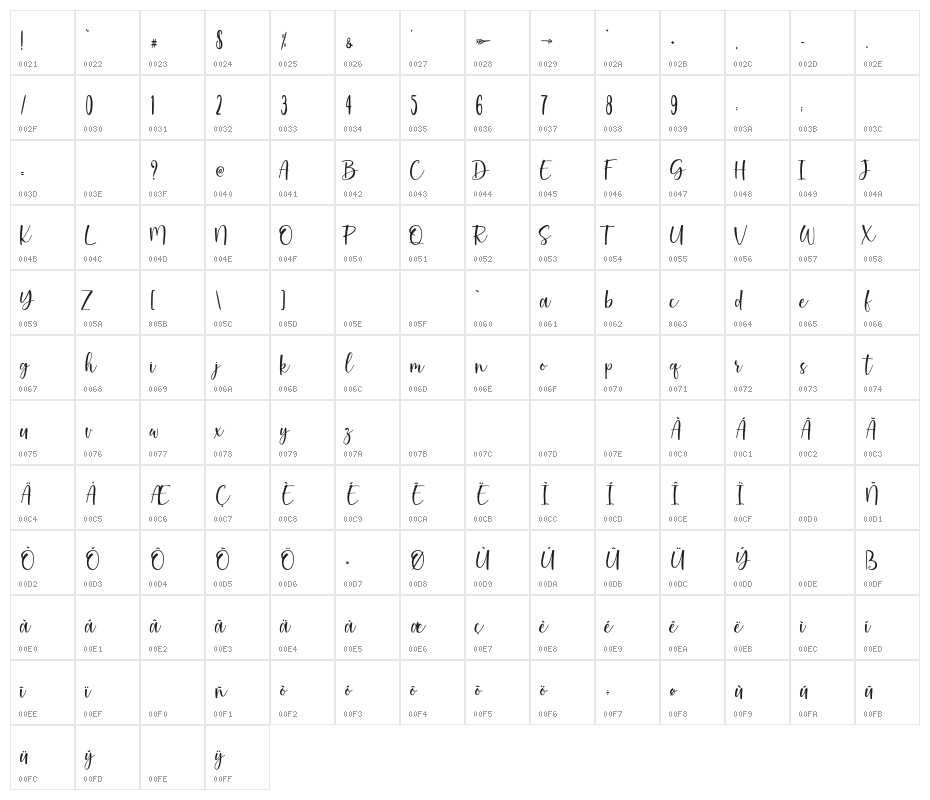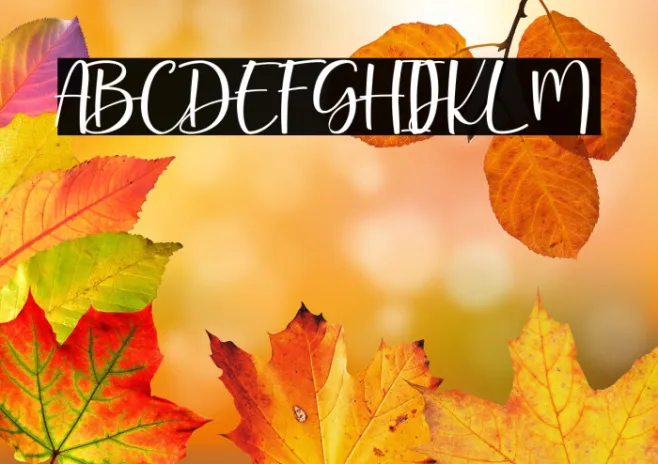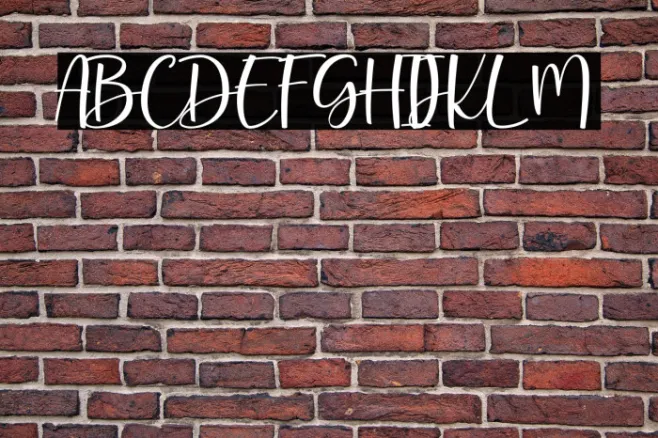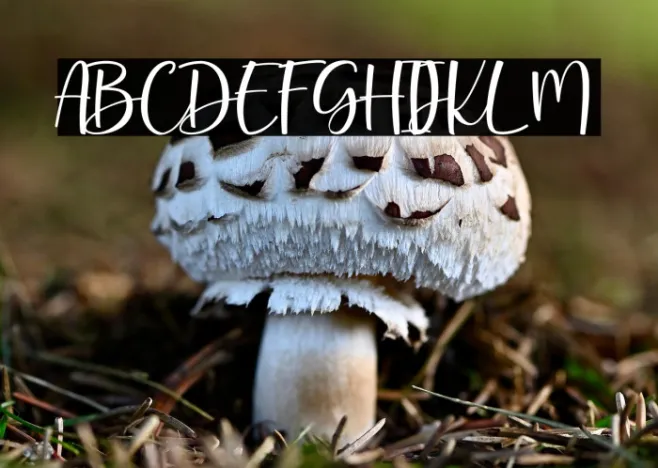
CutieCupidPersonalUse Font
CutieCupidPersonalUse Description
This font features a playful and whimsical script style with a hand-drawn appearance. The uppercase letters are bold and dynamic, with a slight slant and varying stroke thickness that adds a lively feel. The lowercase letters maintain a consistent flow, enhancing readability while retaining a charming, informal look. Numbers are clear and slightly rounded, complementing the overall aesthetic. Special characters are creatively designed, adding a unique touch to the font. This style is perfect for projects that require a personal and friendly tone.
| Proposed Projects | Ideal for greeting cards, invitations, branding, and social media graphics. |